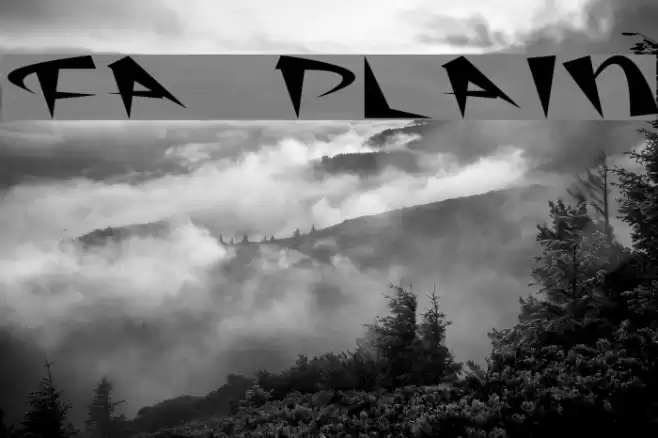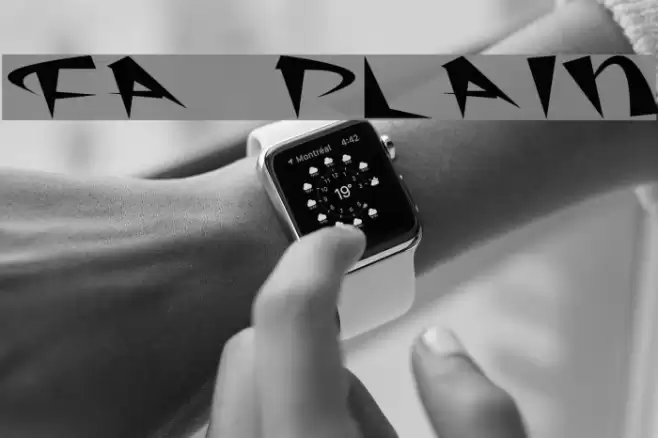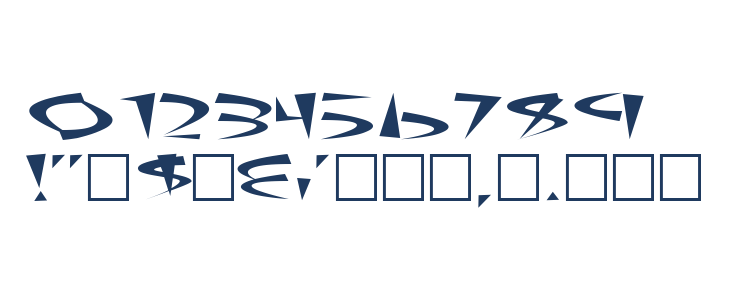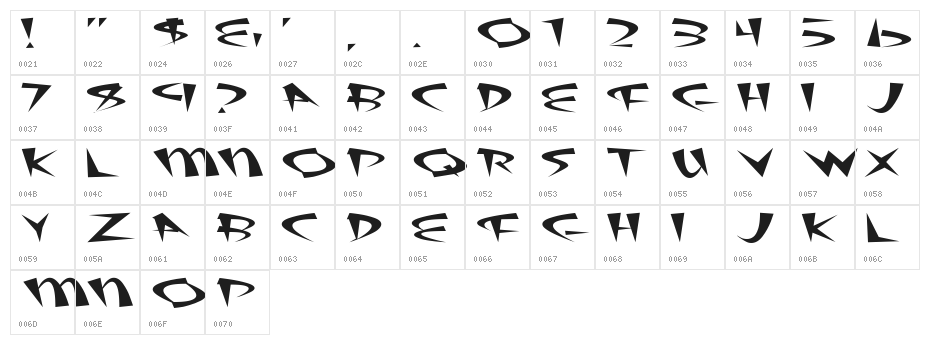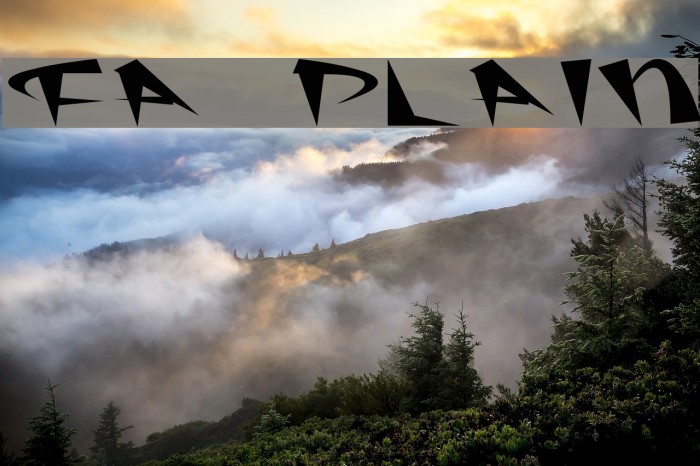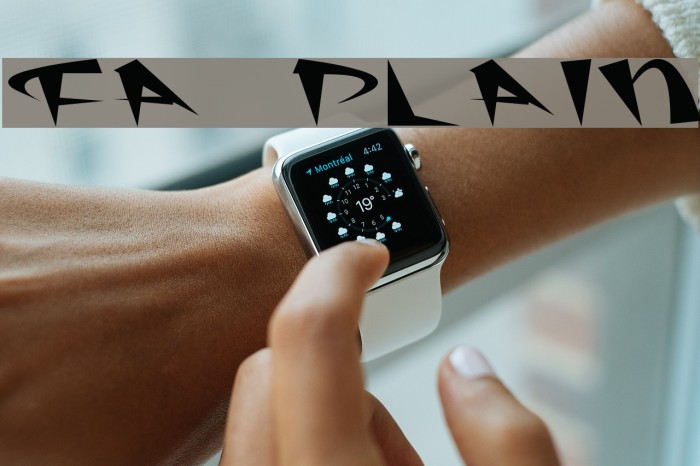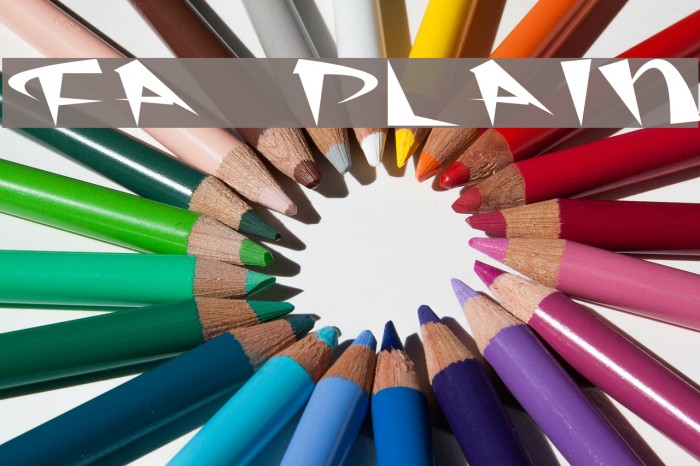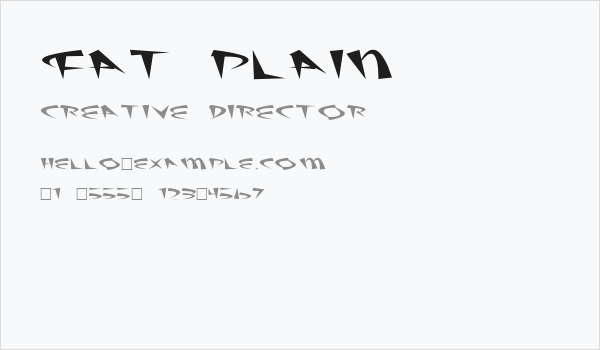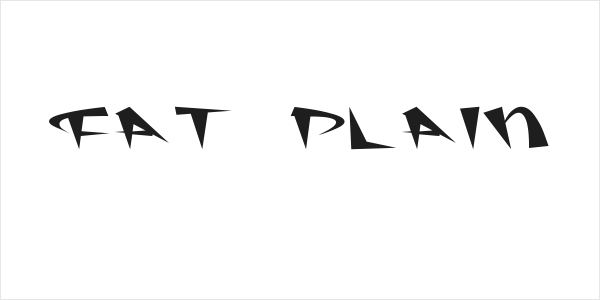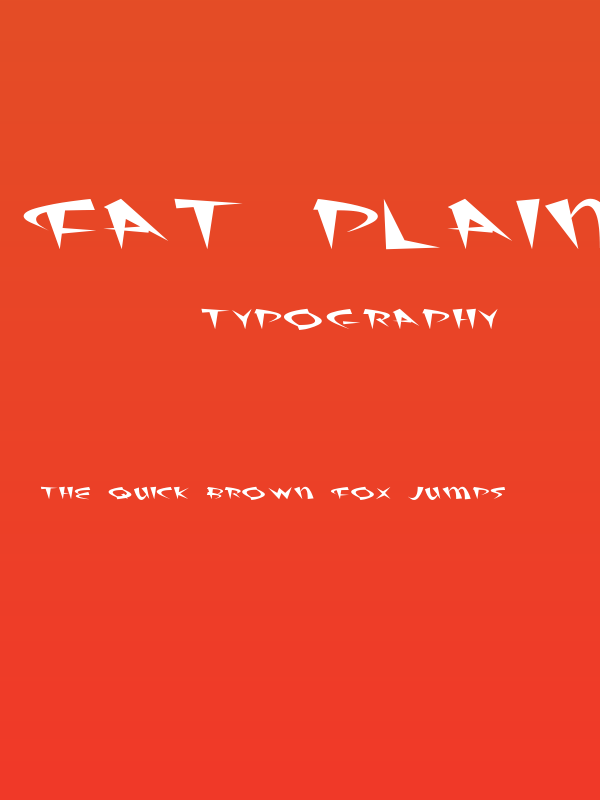
Fat Plain Font
Fat Plain Description
This font features a bold and dynamic design with sharp, angular edges and a futuristic aesthetic. The characters are highly stylized, with exaggerated points and curves that give them a sense of motion and energy. The uppercase and lowercase letters maintain a consistent style, while the numbers and special characters complement the overall look. The font's unique appearance makes it stand out, making it suitable for projects that require a modern and edgy touch.
A bold, angular font with a futuristic and dynamic style from Uncategorized fonts.
- Proposed Projects: Ideal for sci-fi themed designs, video game titles, posters, and branding that requires a modern edge.
- Overall Style: Futuristic, Edgy